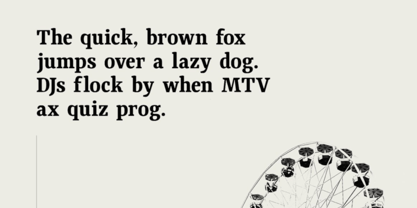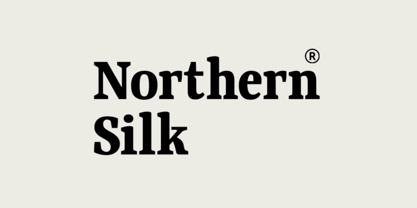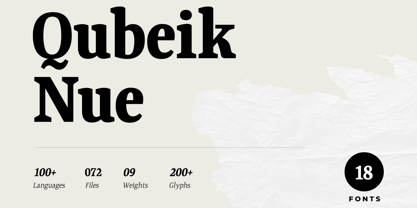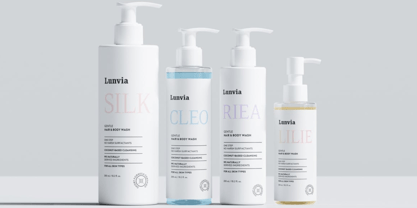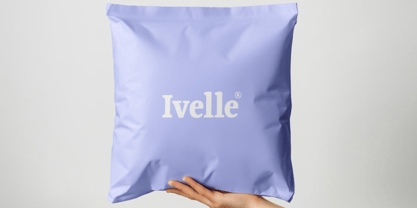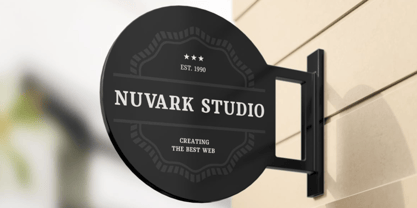
Qubeik
by Webhance
The Qubeik Font Family was designed by Alwin Johnson and published by Webhance. Qubeik contains 18 styles and family package options.
Qubeik Nue - Classic Roots. Contemporary Edge
Qubeik Nue is a modern serif typeface inspired by editorial elegance, typographic heritage, and digital clarity. Featuring 9 carefully crafted weights with italics variants, 18 fonts, and support for 100+ languages, Qubeik Nue balances sharp serifs with a contemporary rhythm — making it perfect for headlines, branding, packaging, websites, and sophisticated layout design.